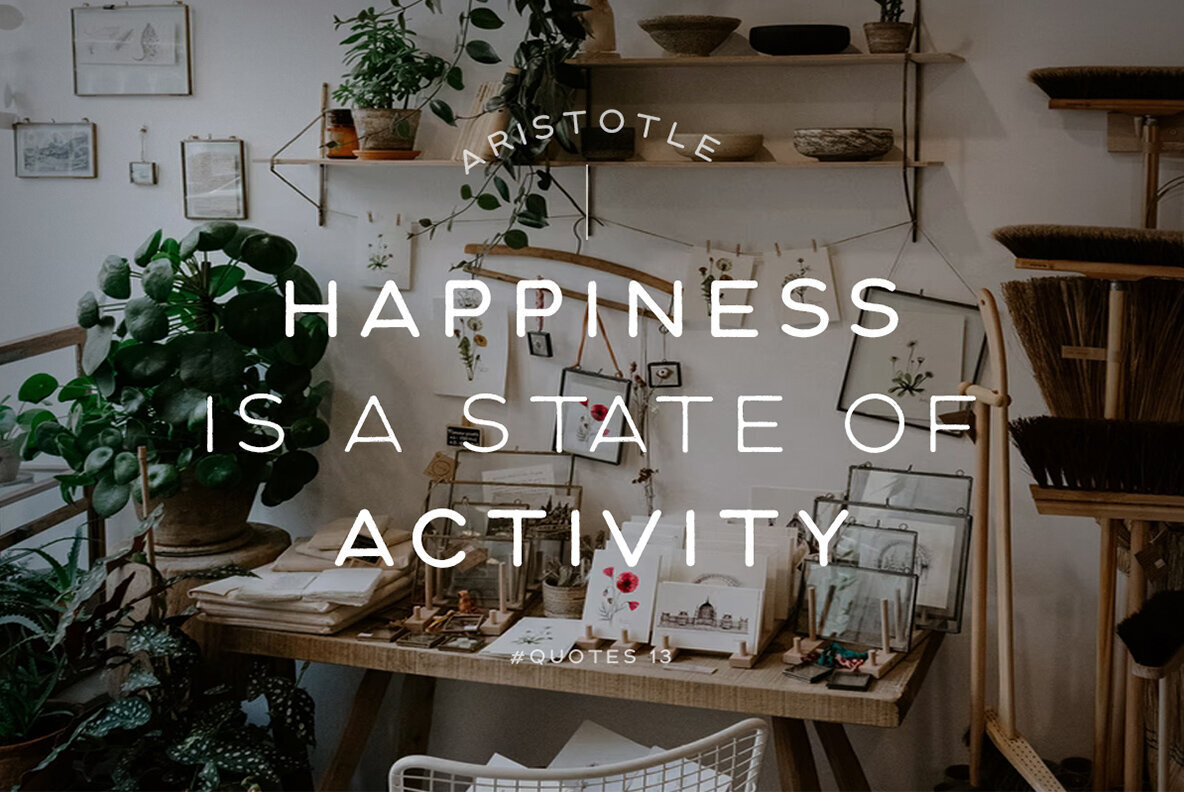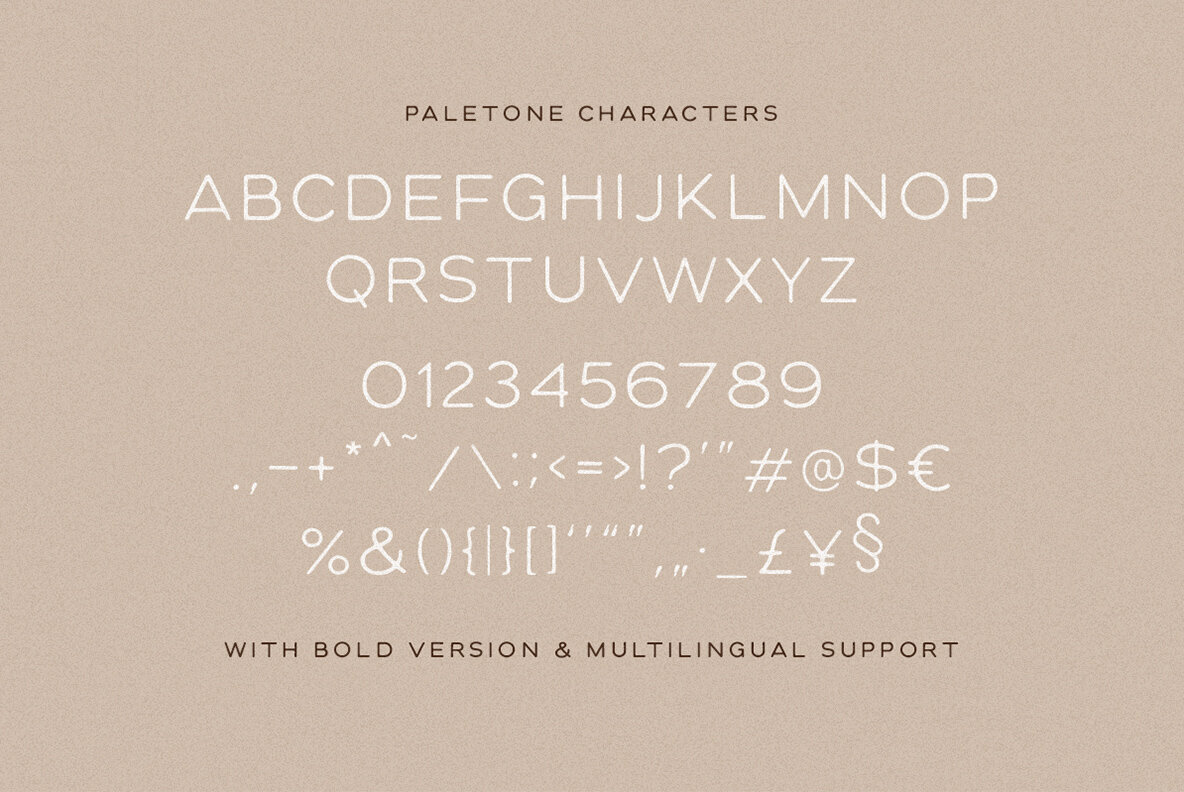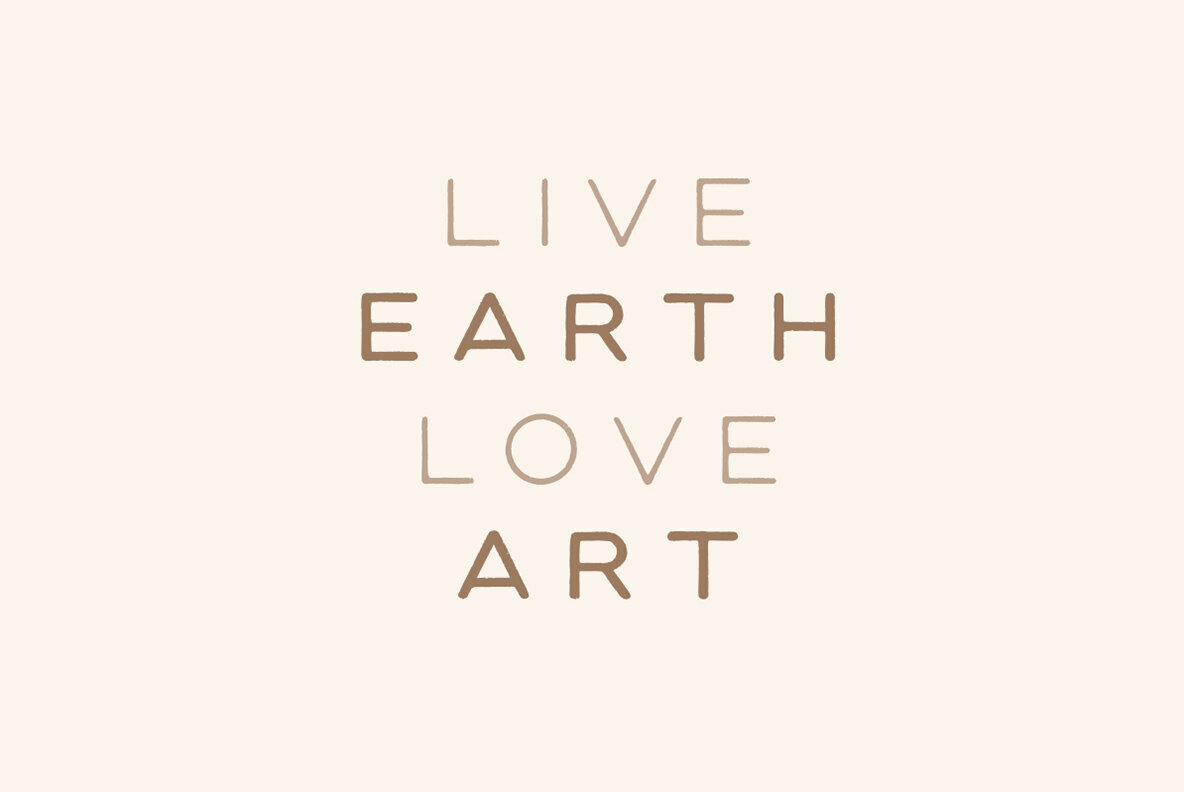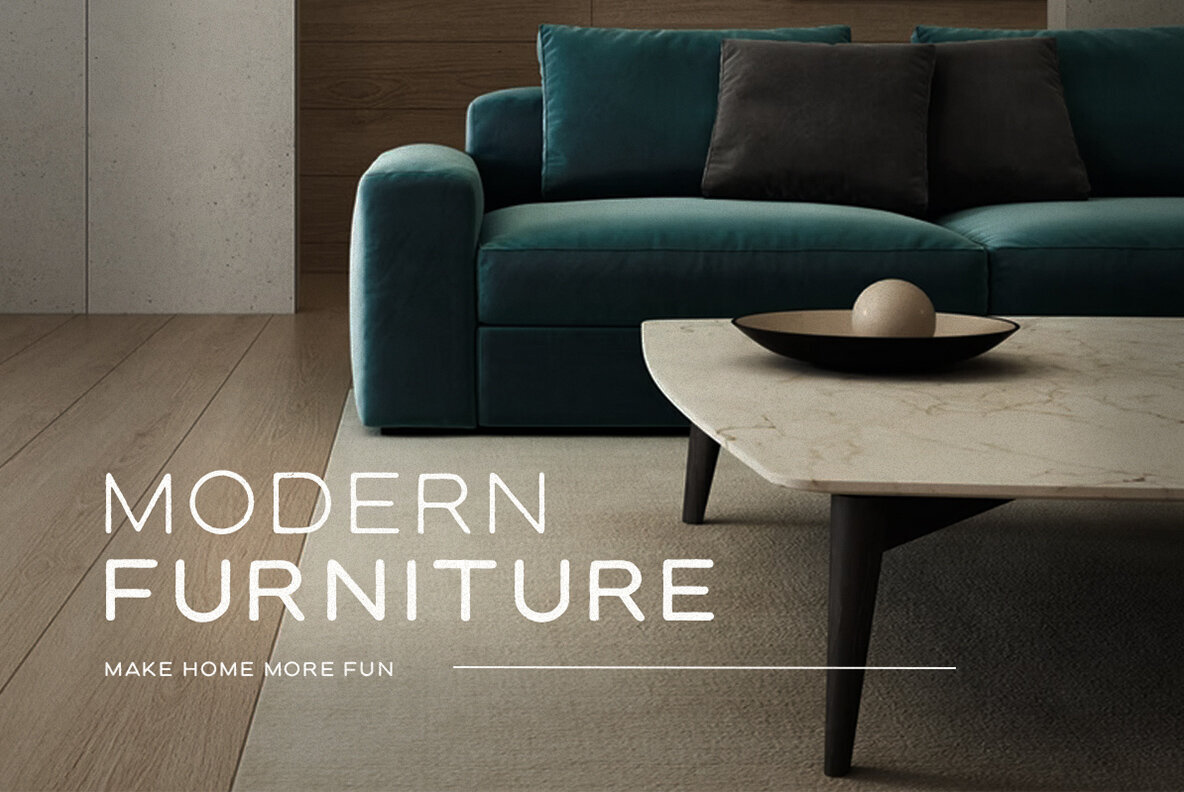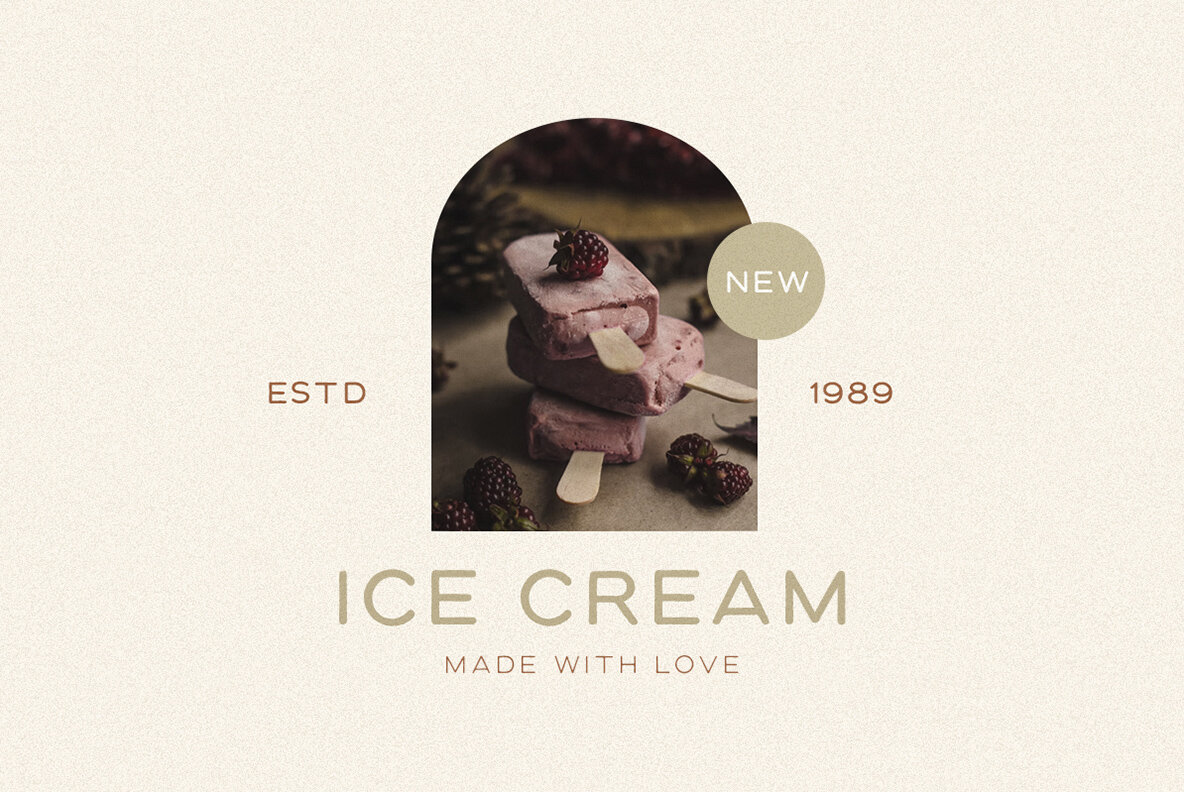
Paletone Font
The organic and handmade feel of Paletone makes it perfect for any project, especially those with earth tones. With the ability to use multiple languages without issue this font is sure not only be good at drawing your attention but keep you focused on what matters most - their meaning!